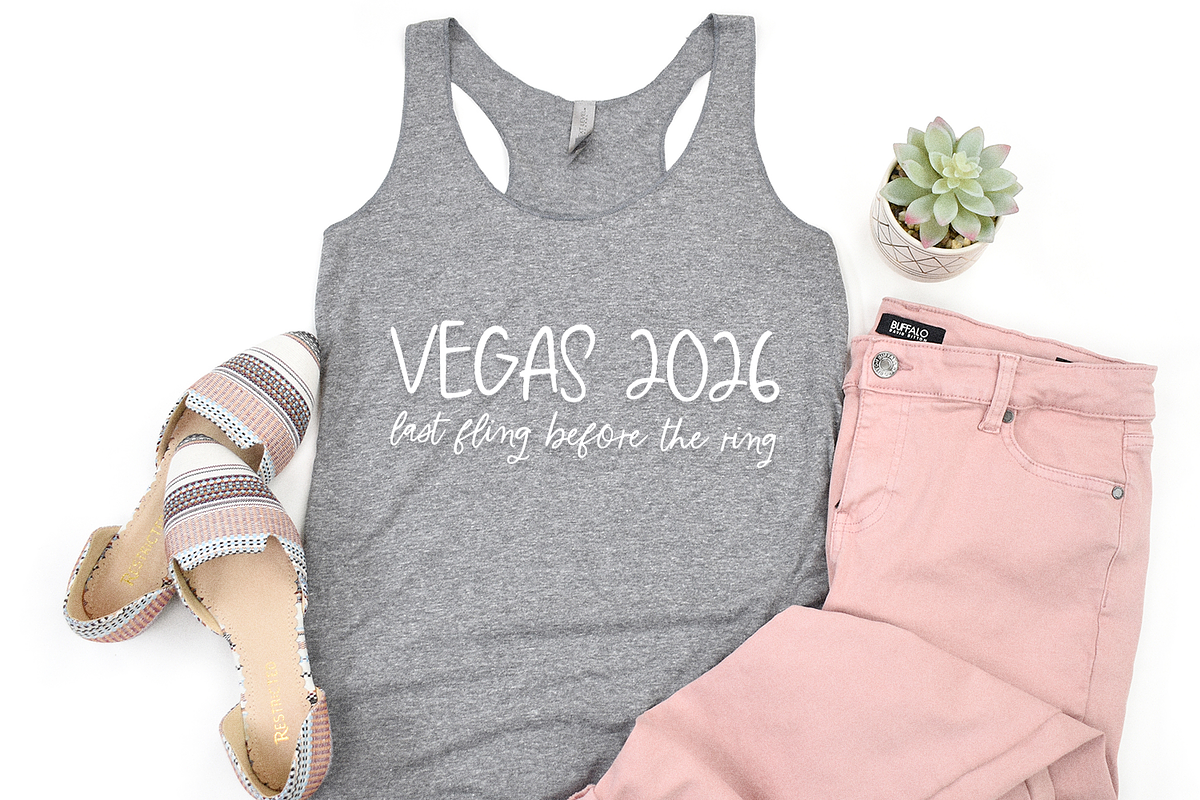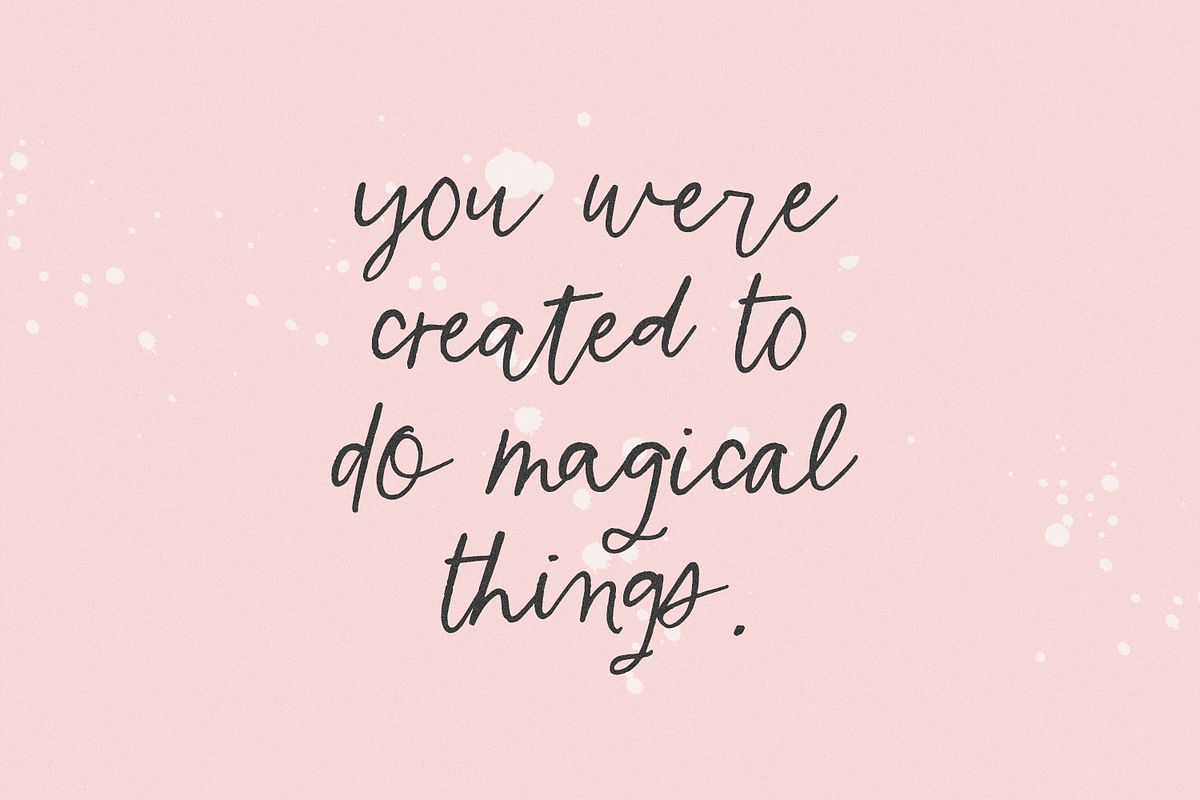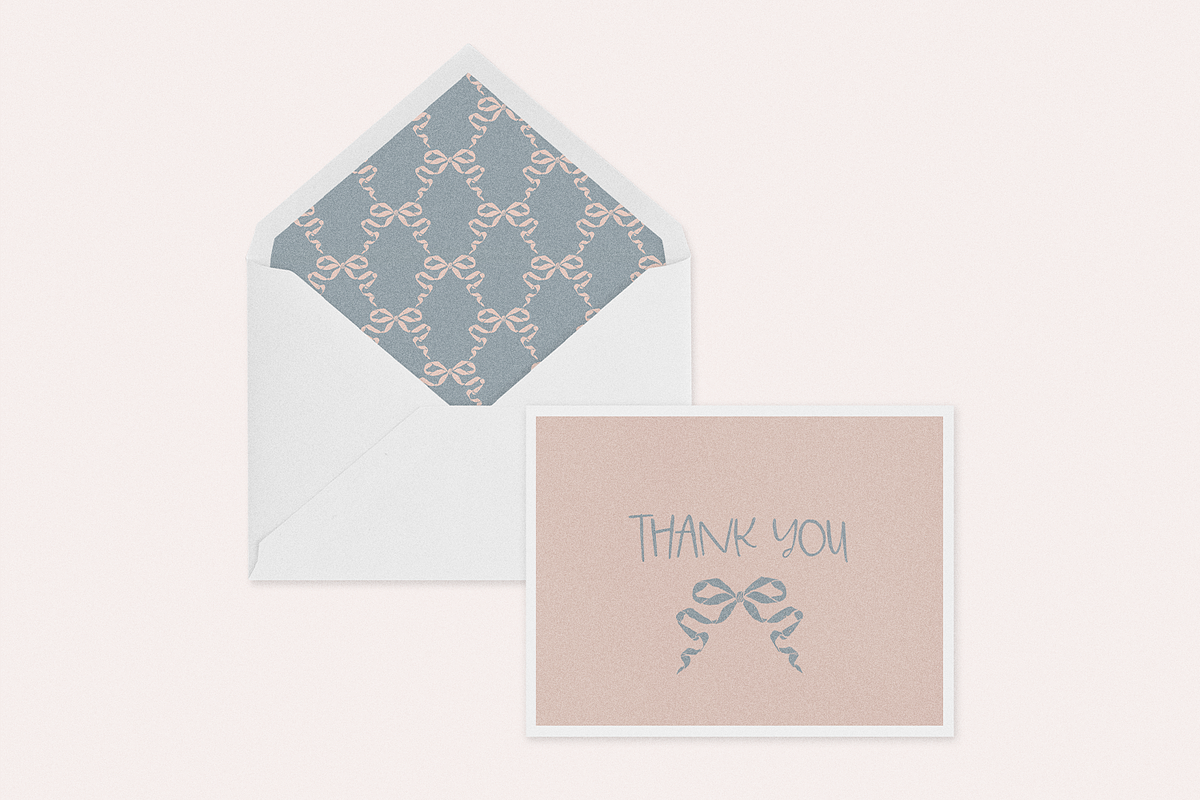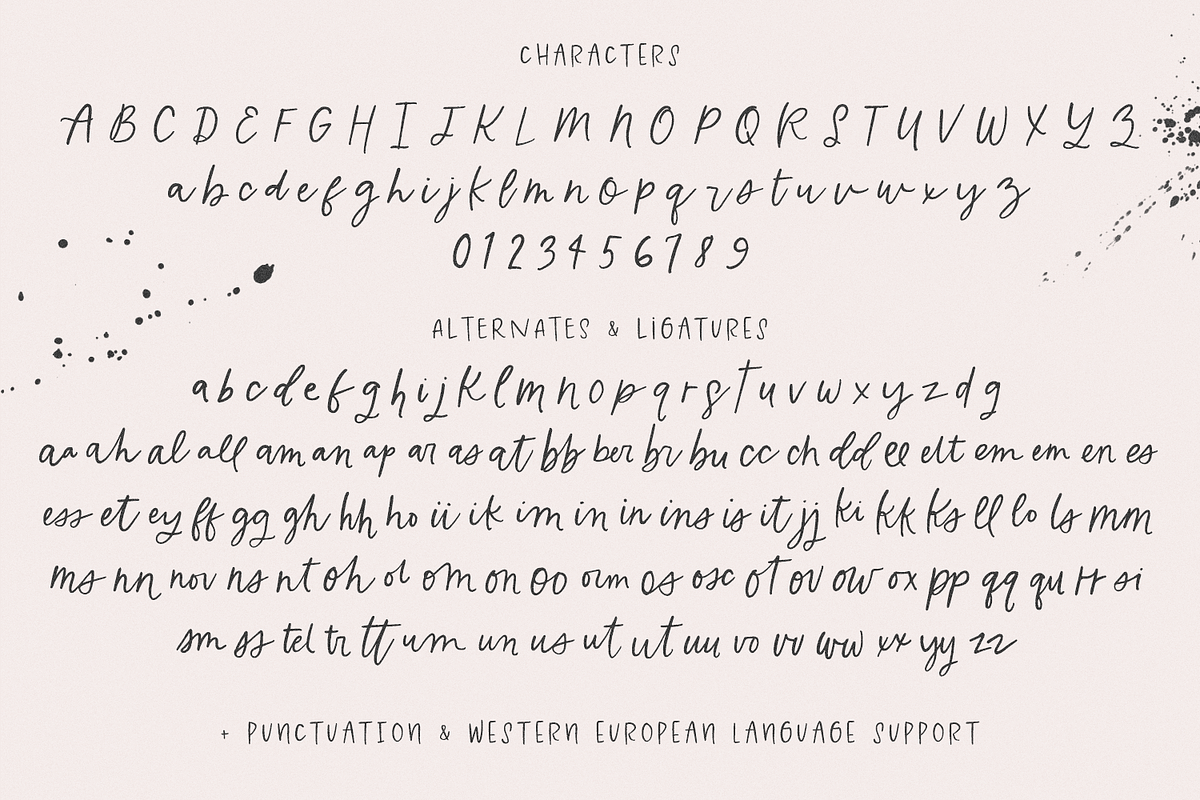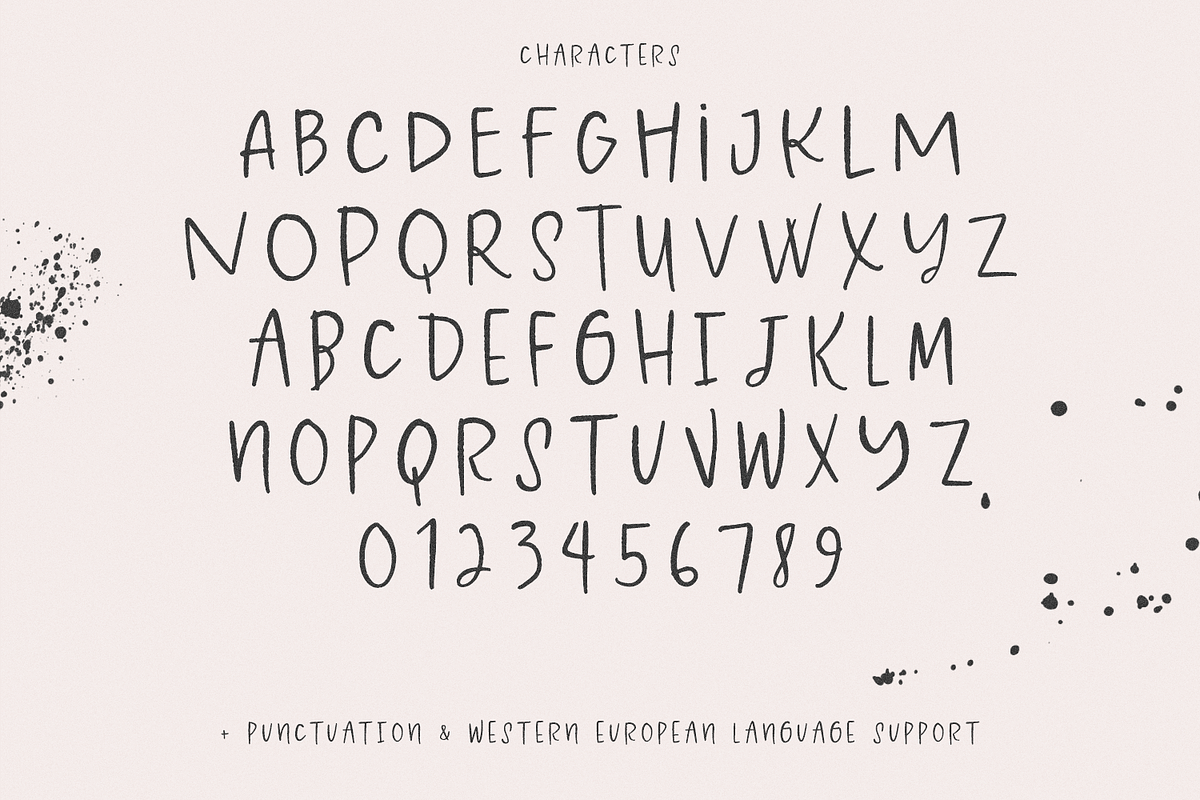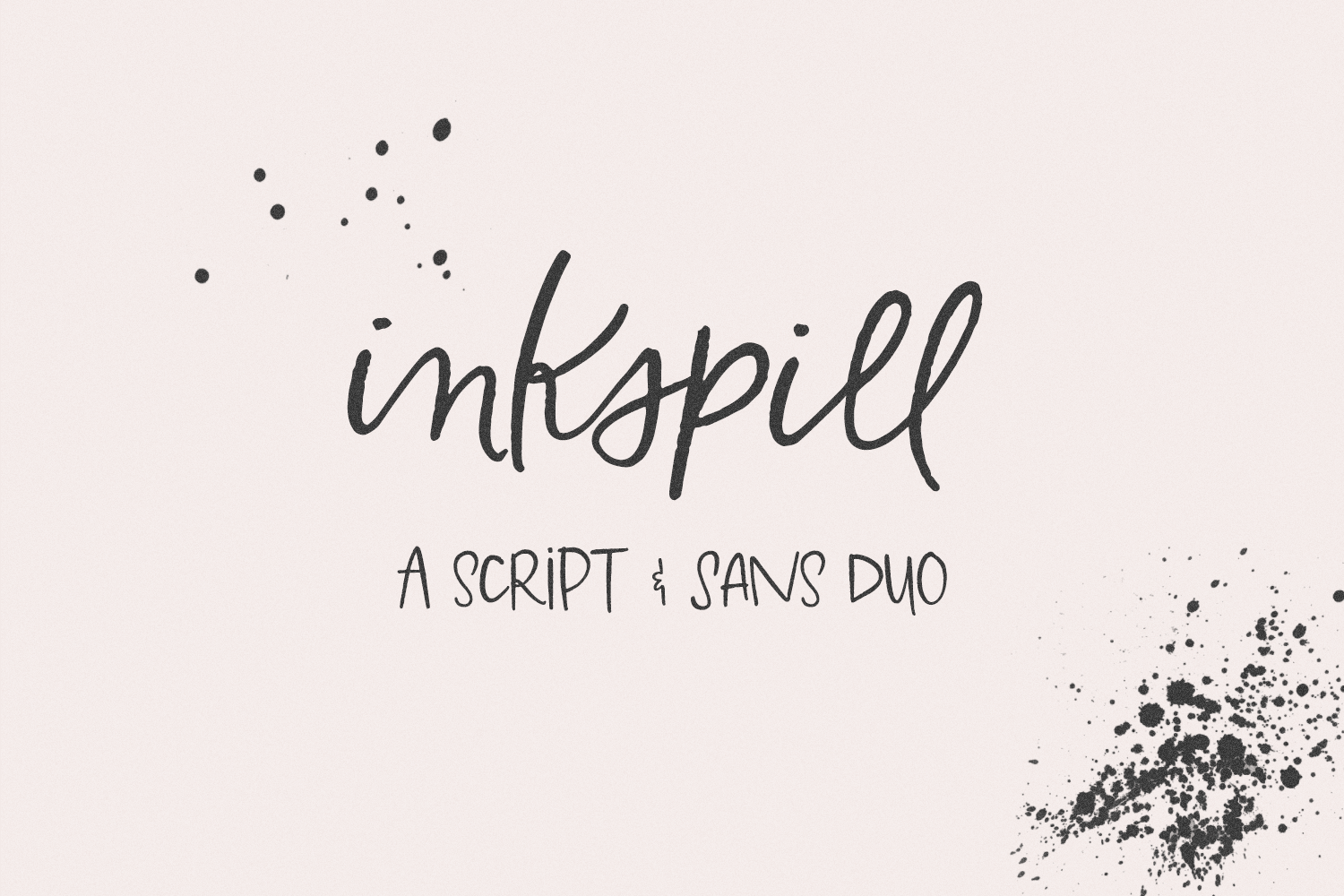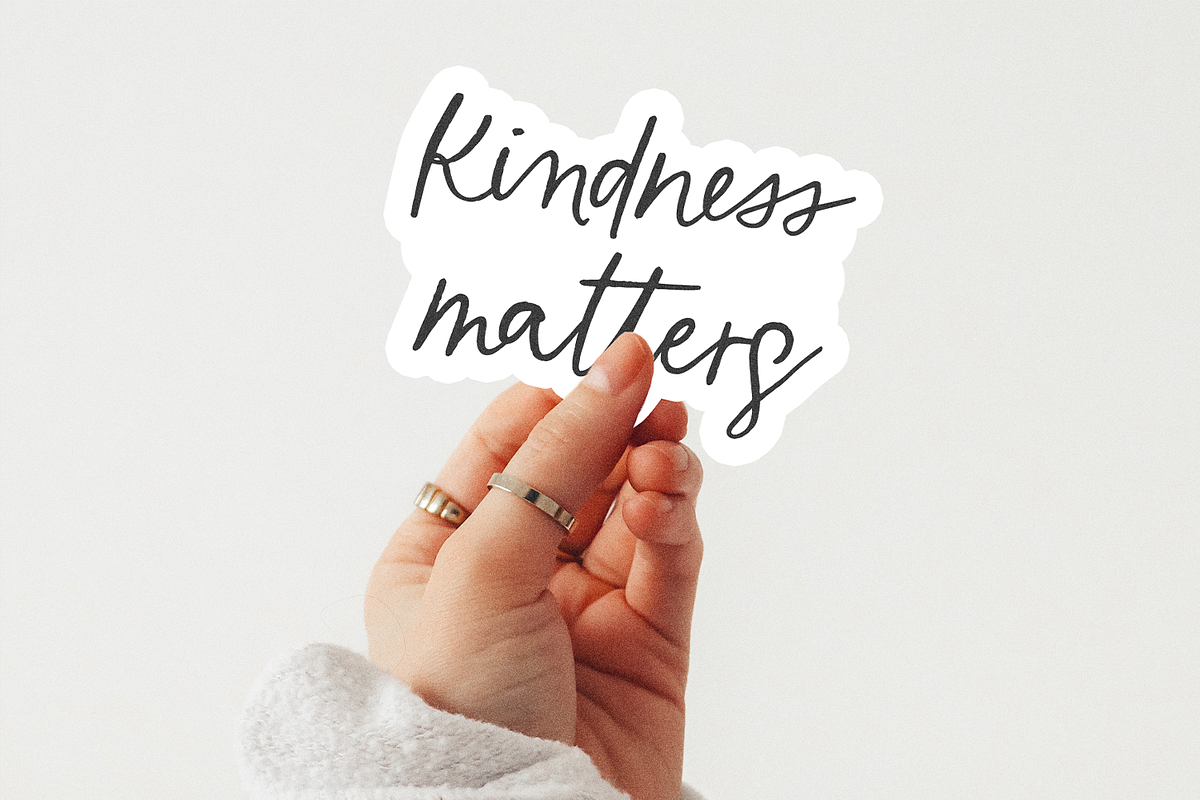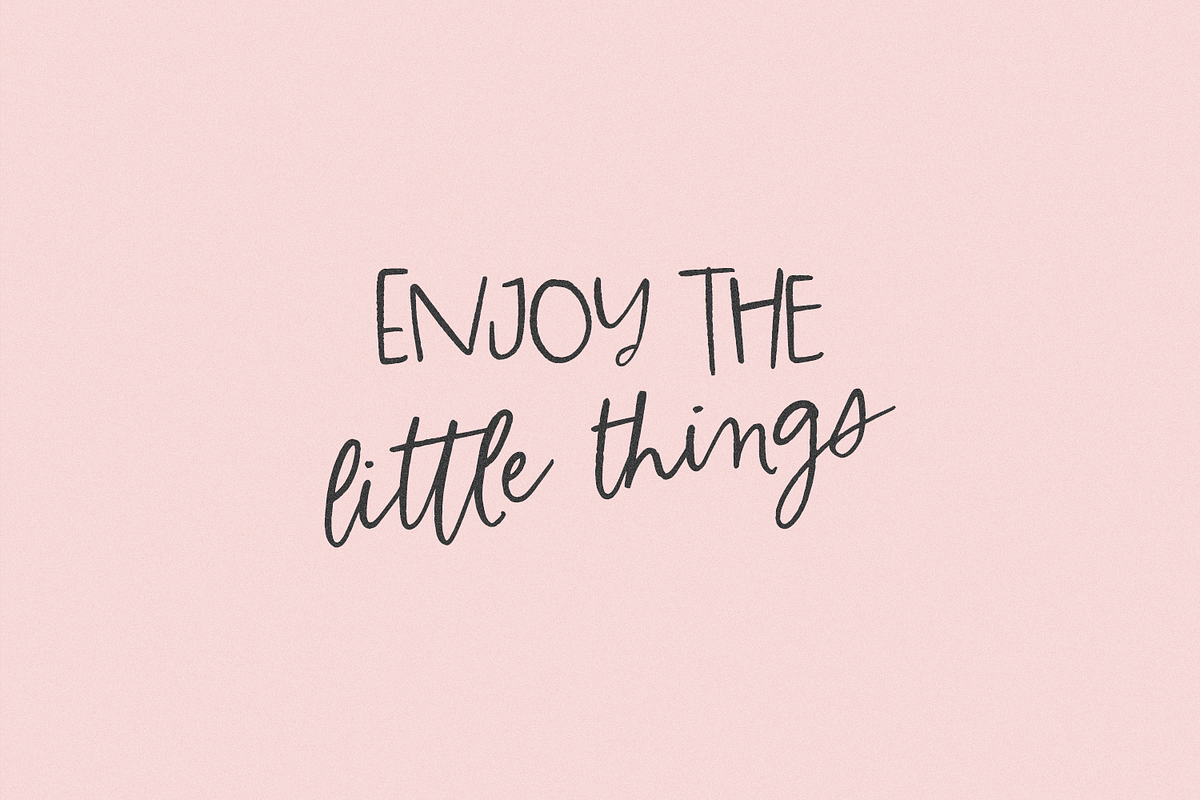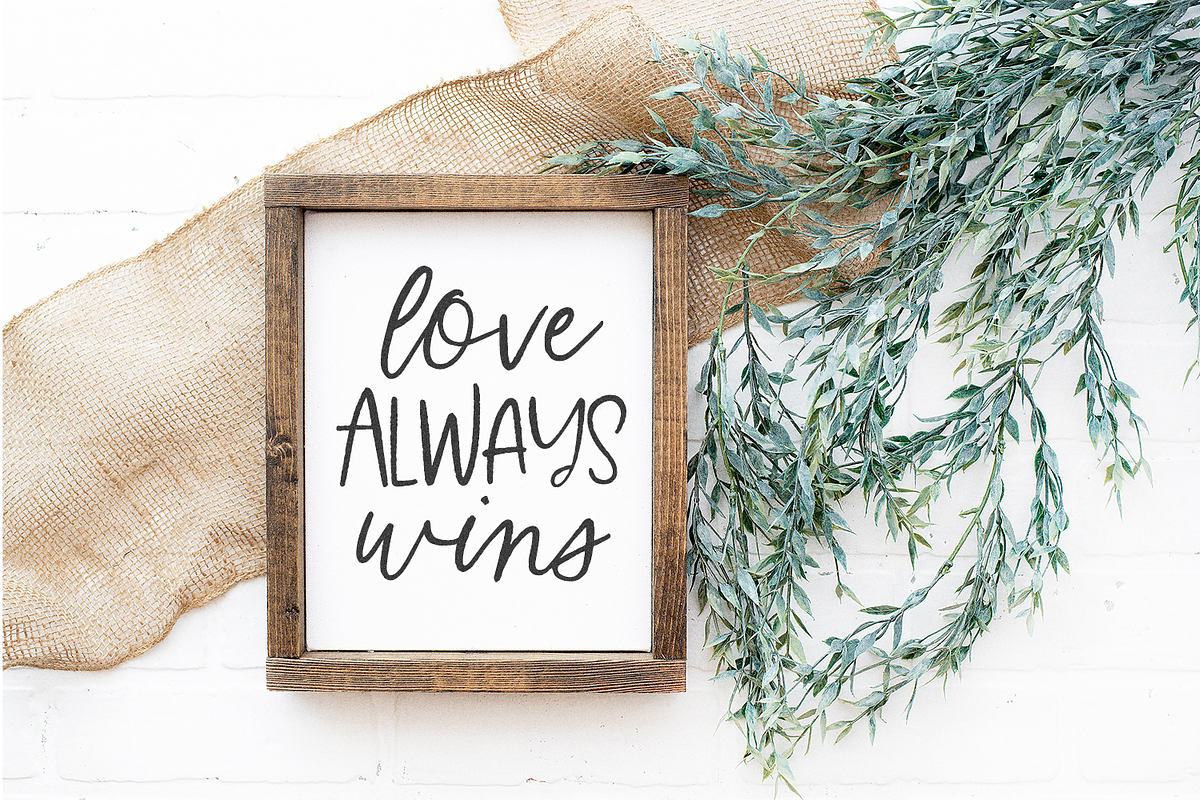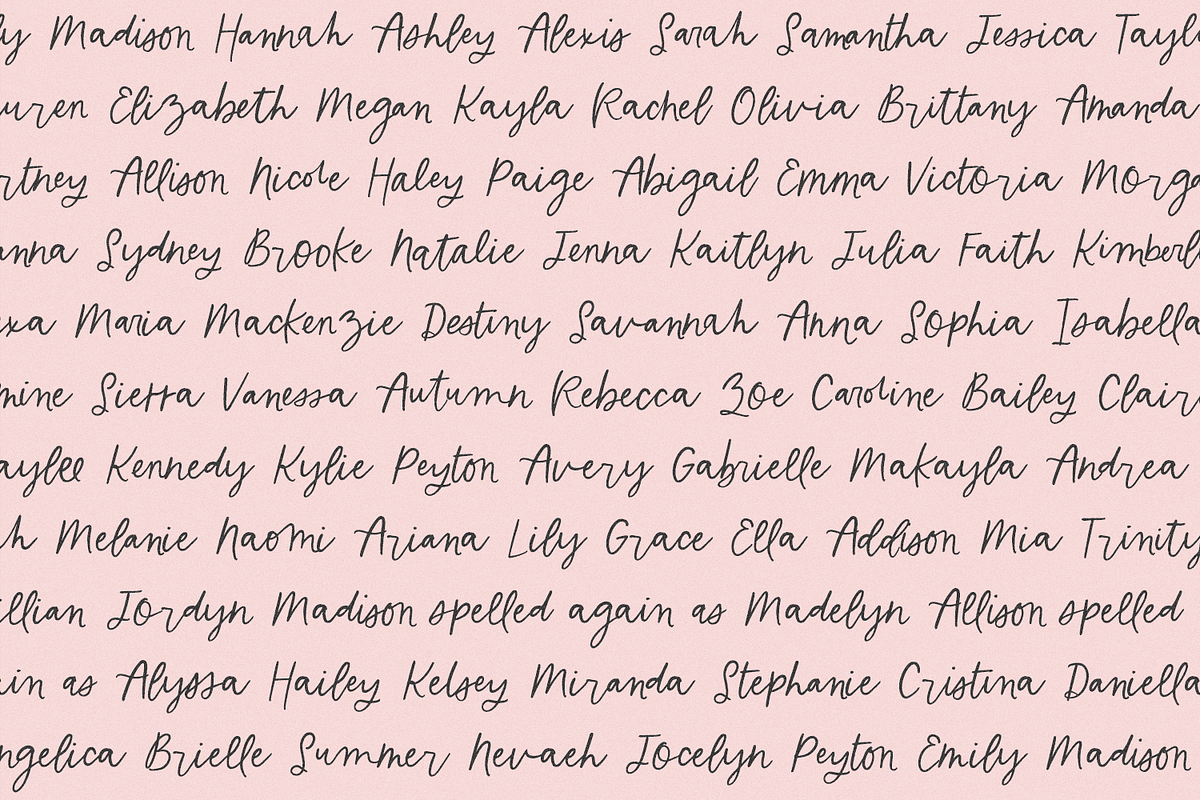
Inkspill Script and Sans Font Duo
Inkspill is a lightly-textured handwriting font duo, which includes a script font and an all-caps sans font. Inkspill Script is full of ligatures - keep them turned on in your design software for automatic replacements! This script font also includes some alternate characters. Inkspill Sans is a playful all-caps font, which uses different capital letters for upper & lowercase so that you can mix & match. Inkspill is perfect for logos & branding, greeting cards, painted banners, digital planners, note-taking apps, Canva, Cricut projects, Silhouette projects, designing SVG files, laser cutting projects, & more.
Inkspill Script includes:
- full upper + lowercase characters
- numbers + punctuation
- 28 alternates
- 86 ligatures - aa, ah, al, all, am, an, ap, ar, as, at, bb, ber, br, bu, cc, ch, dd, ee, elt, em, em, en, es, ess, et, ey, ff, gg, gh, hh, ho, ii, ik, im, in, in, ins, is, it, jj, ki, kk, ks, ll, lo, ls, mm, ms, nn, nov, ns, nt, oh, ol, om, on, oo, orm, os, osv, ot, ov, ow, ox, pp, qq, qu, rr, si, sm, ss, tel, tr, tt, im, un, us, ut, ut, uu, vo, vv, ww, xx, yy, zz
- Western European language support - English, French, Spanish, Portuguese (Brazil), Portuguese (Portugal), Italian, German (Germany), German (Austria), Dutch, Danish, Swedish, Norwegian (Bokmål and Nynorsk), Finnish, Icelandic, Irish, Welsh
Inkspill Sans includes:
- full uppercase characters programmed into upper & lowercase spots so you can mix cases with different capital letter versions
- numbers + punctuation
- Western European language support - English, French, Spanish, Portuguese (Brazil), Portuguese (Portugal), Italian, German (Germany), German (Austria), Dutch, Danish, Swedish, Norwegian (Bokmål and Nynorsk), Finnish, Icelandic, Irish, Welsh